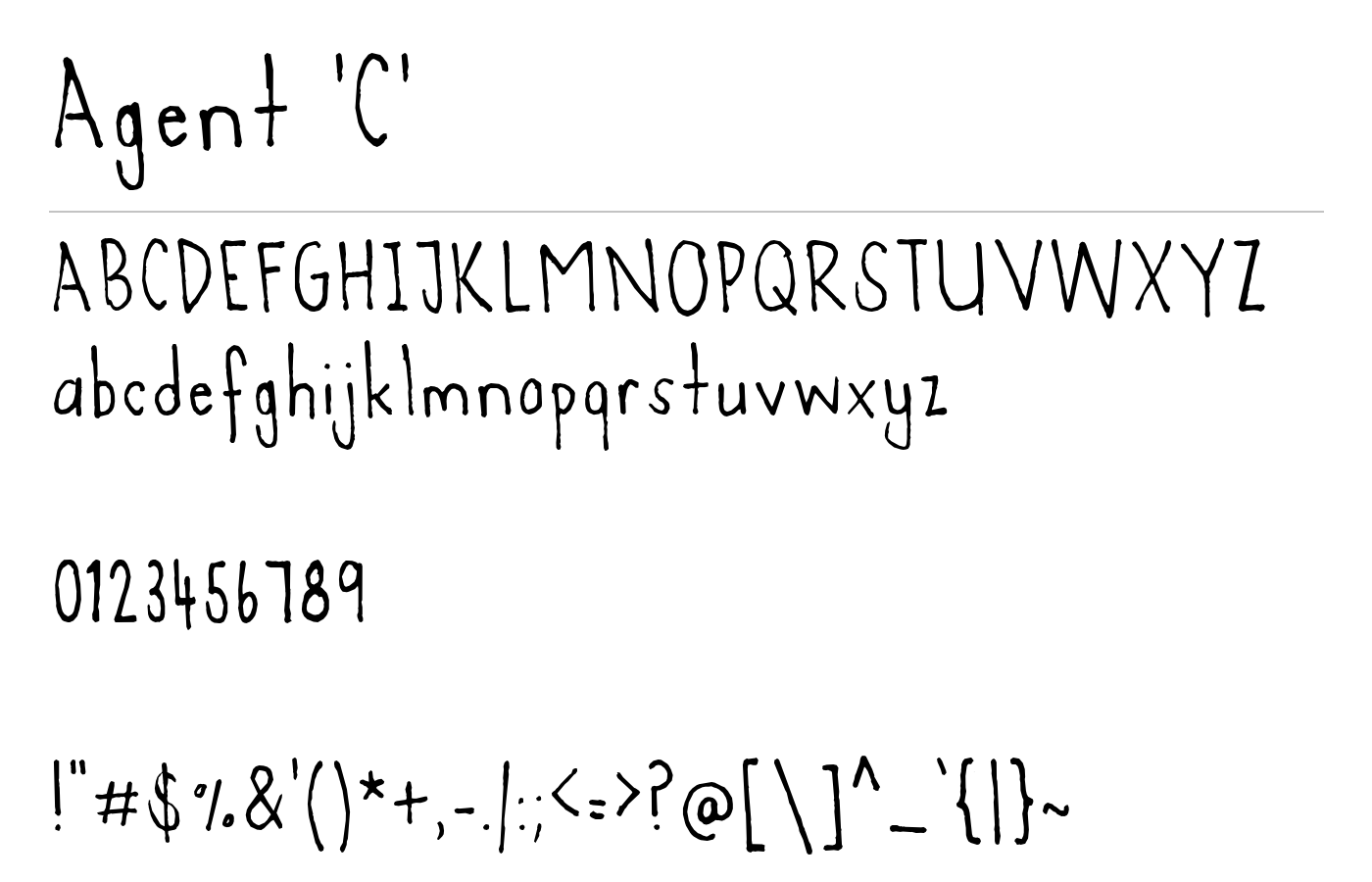
Agent 'C' is a narrow, handwritten-style sans serif font characterized by its tall, thin letterforms and irregular, organic strokes that create a casual, slightly quirky feel. Its delicate lines and natural imperfections make it ideal for projects that seek a personal, informal touch while maintaining readability. This font works wonderfully for creative headlines, playful branding, and informal editorial content where a human, approachable style is desired.
Agent 'C' Font
About Agent 'C' Font
| Font family | Agent 'C' Font |
| Designer | Agent 'C' |